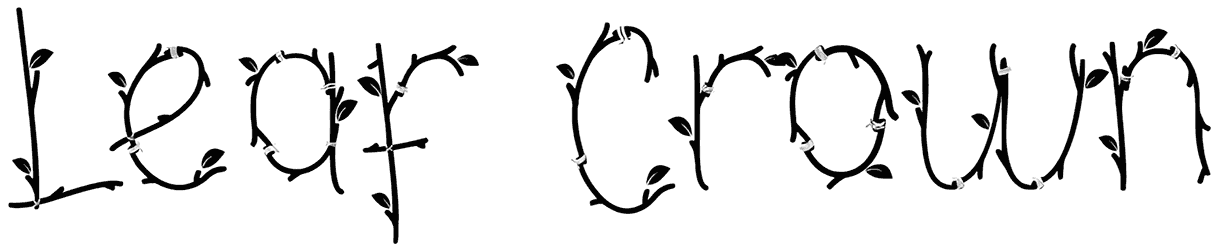
Leaf Crown Font
Leaf Crown is a collection of two styles described as an energetic decorative font. Its combination with nature can evoke the feeling of newly grown leaves at the beginning of spring.
So, if you are designing a cute girly project or want to present your environmental message in a beautiful format, this leaf font can put the crown on your head. Because it is representative of nature, and the lack of numbers keeps it away from the severe and everyday atmosphere.